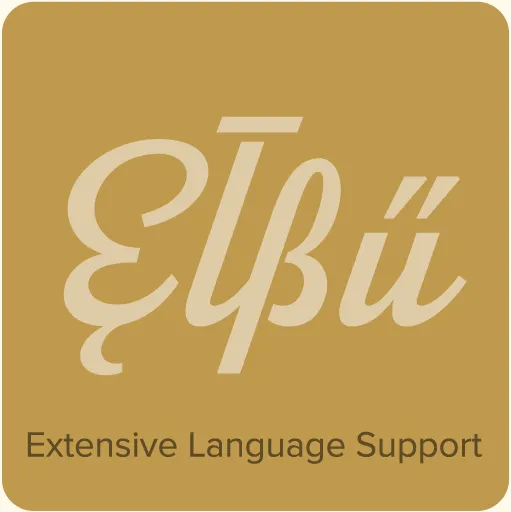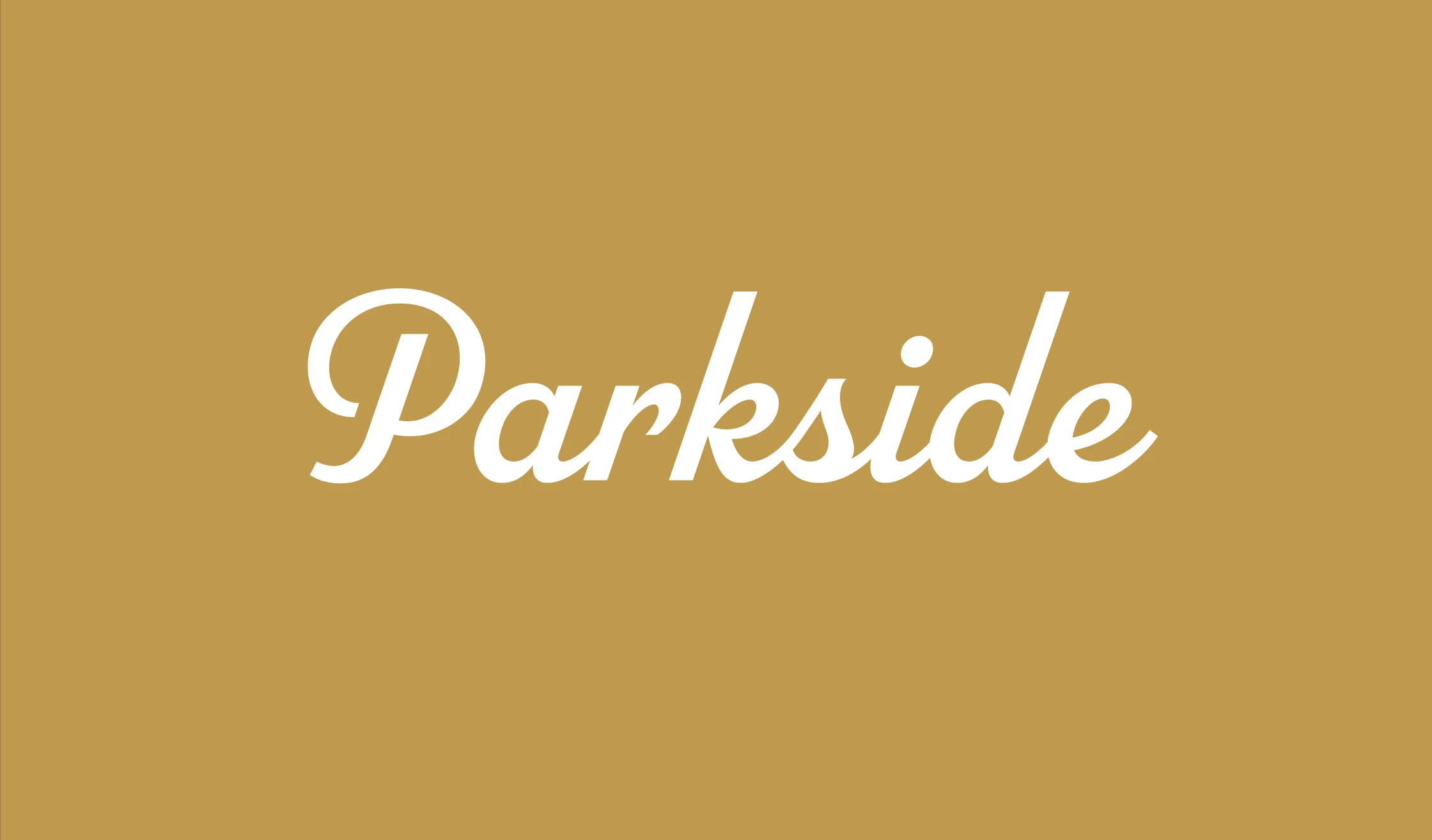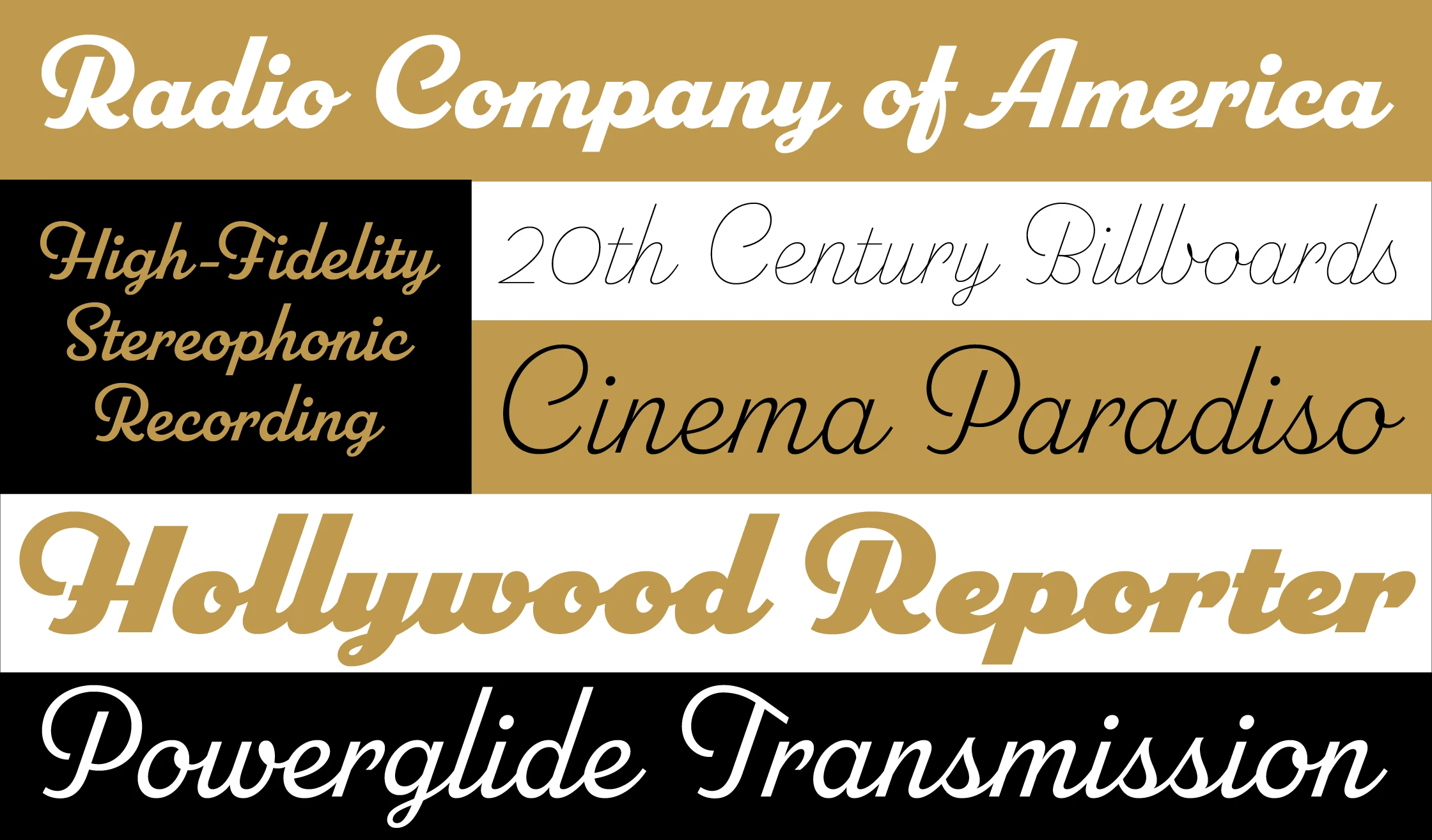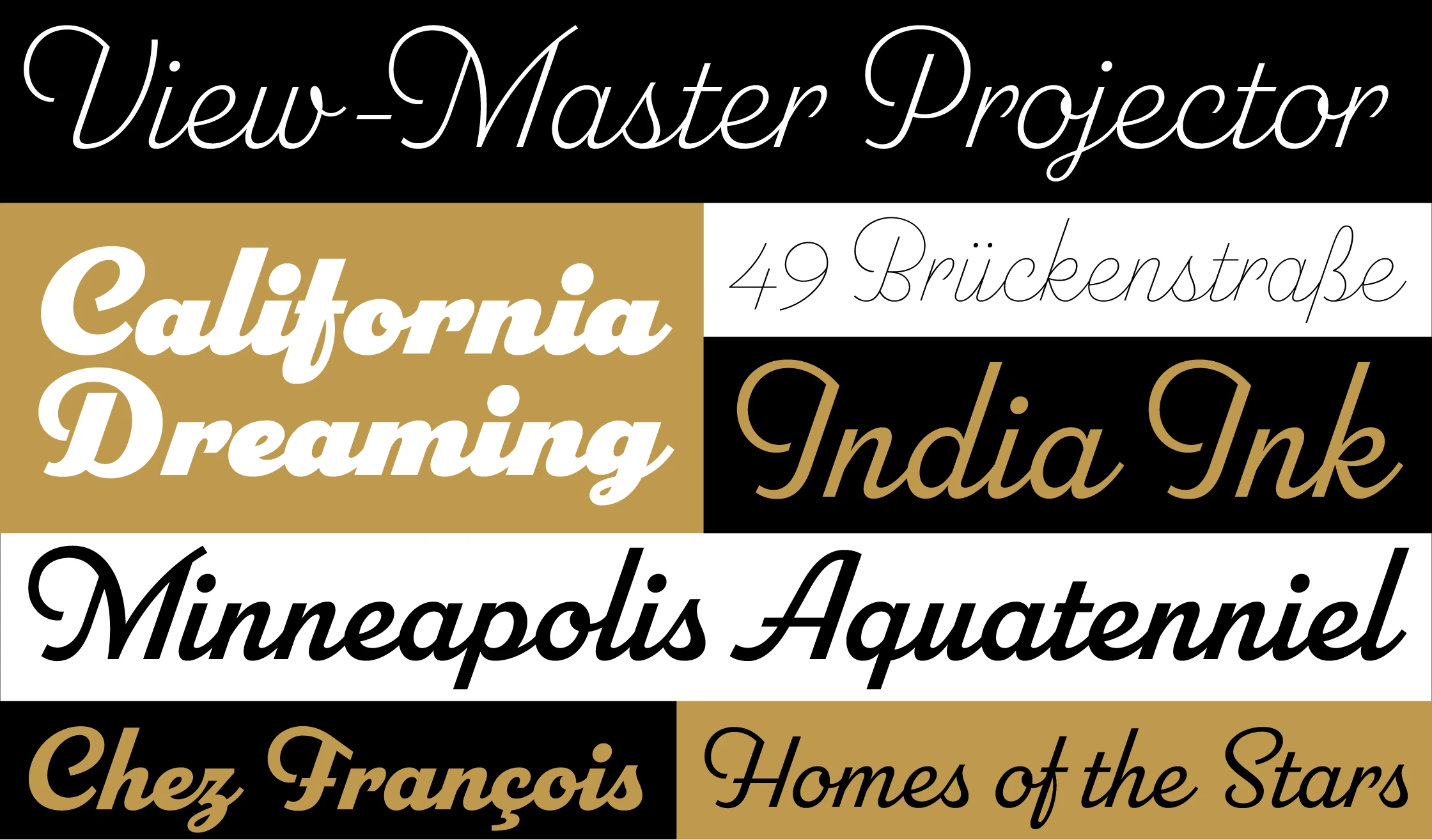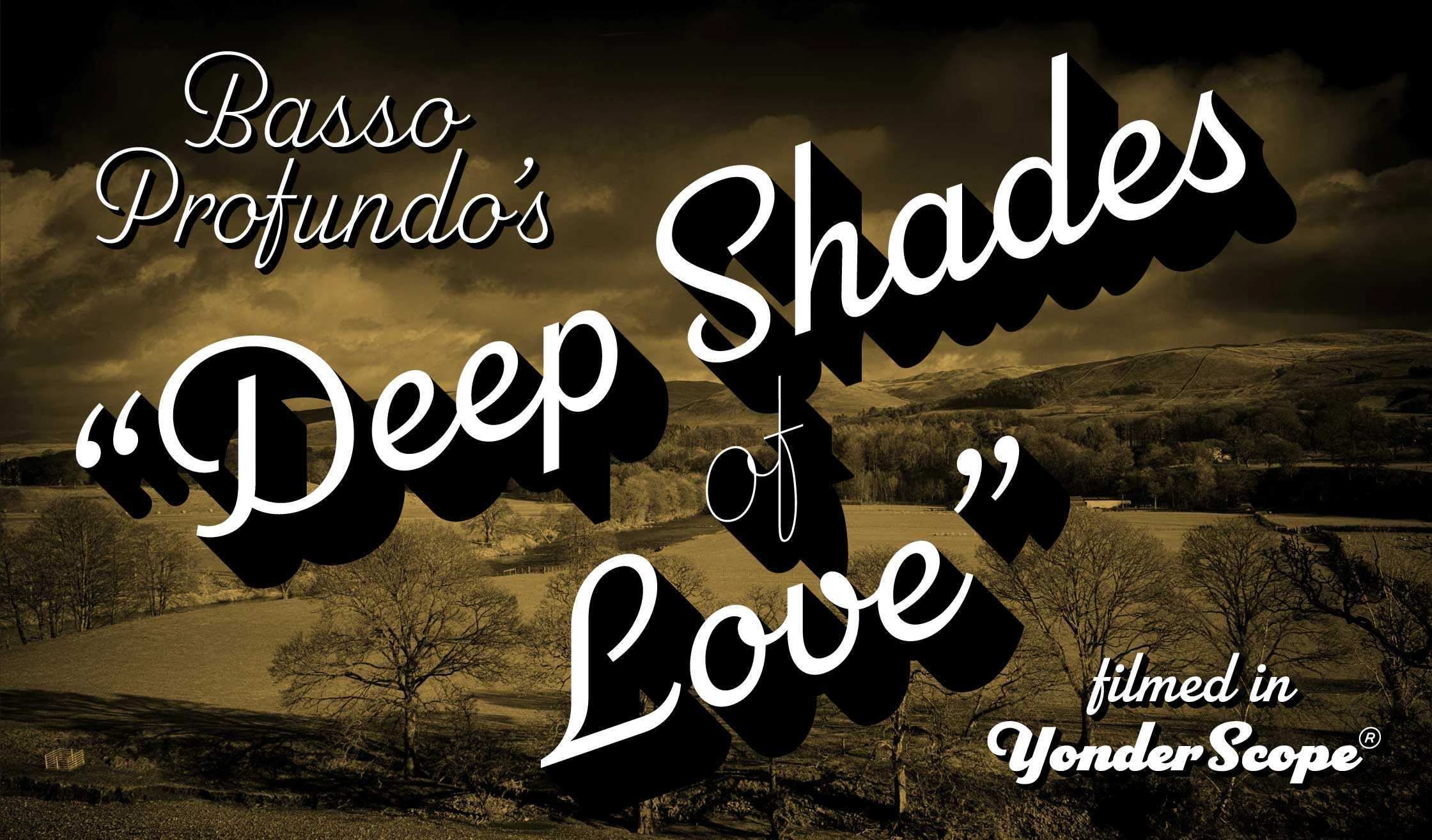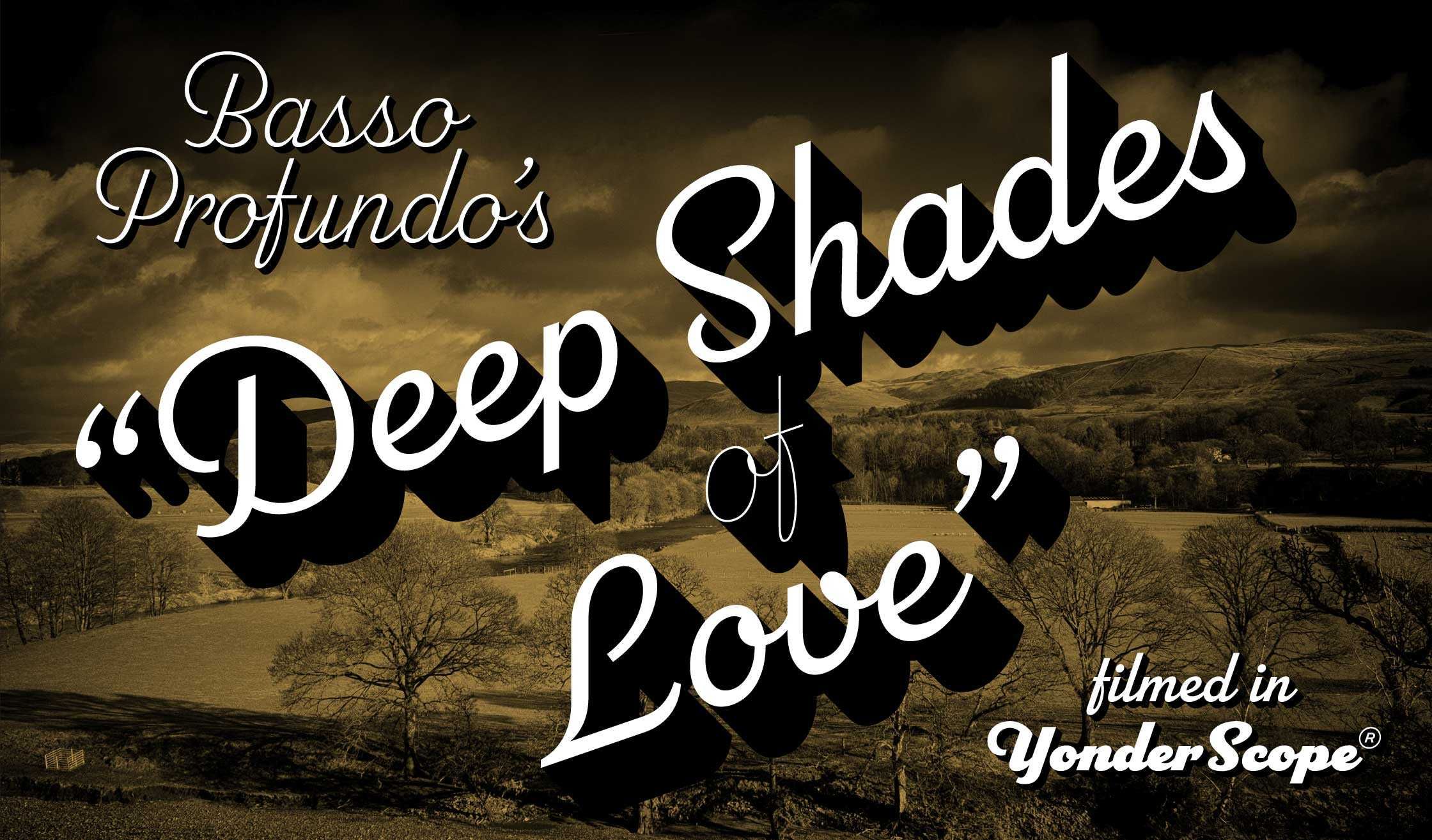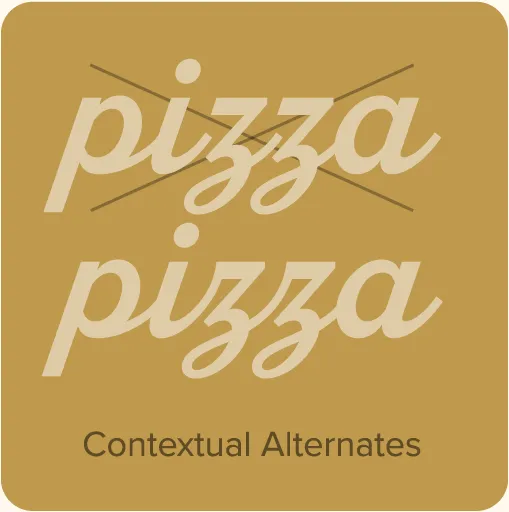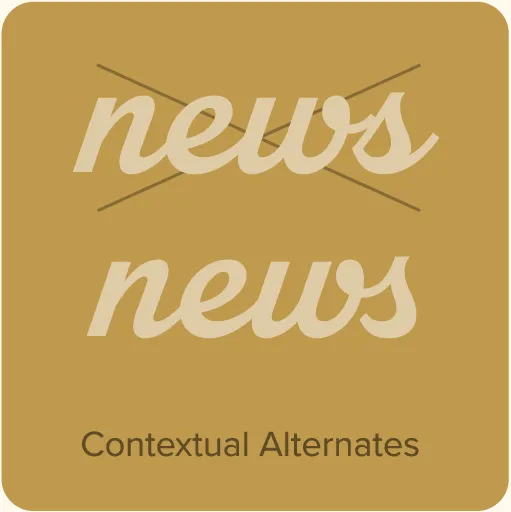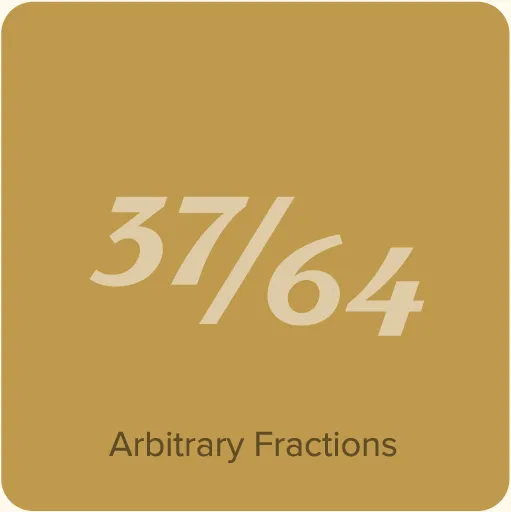
- Six weights: Hairline, Thin, Light, Regular, Bold, and Black.
- Advanced OpenType magic to automatically use the appropriate letter shapes as you type based on the connecting strokes of adjacent letters.*
- Arbitrary fractions (OpenType Fraction feature).*
- Superscript and subscript.*
- Extended language support for most Latin-based Western and Central European languages.